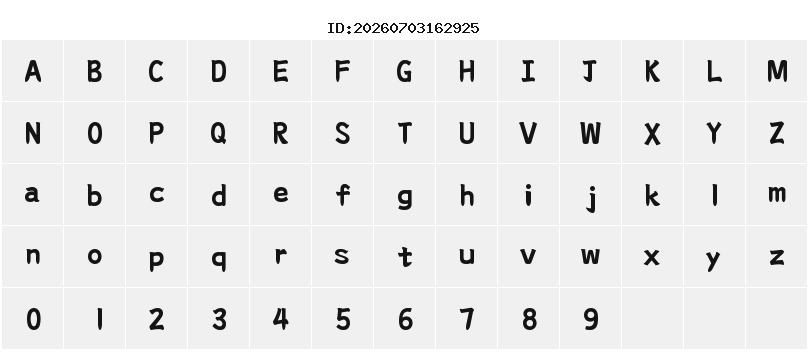
446-上首飞鸿体 Preview
• Font Name: 446-上首飞鸿体
• Font ID: 446-SSFeiHongTi:Version 4.00
• Full Font Name: 446-上首飞鸿体
• Version: Version 4.00;March 30, 2026;FontCreator 13.0.0.2613 64-bit
• PostScript Name: 446-SSFeiHongTi
• Character Count: 7601
• Manufacturer: 上首造字
About 446-上首飞鸿体.ttf
446-上首飞鸿体.ttf is a modern, elegant sans-serif font designed for ultimate readability and visual harmony. Perfect for branding, headlines, web design, and print materials.